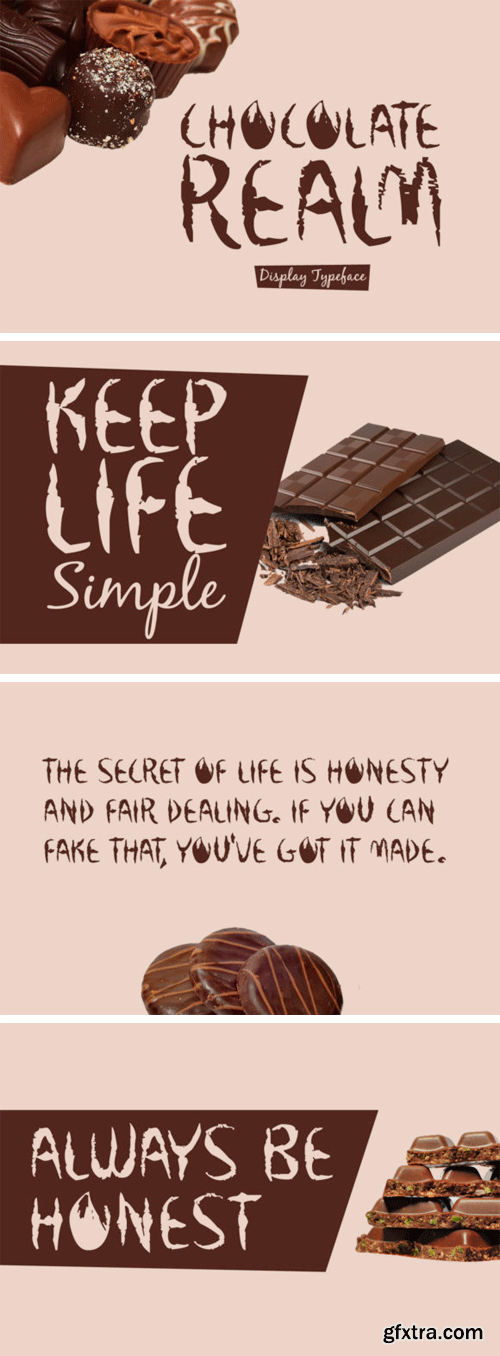
巧克力王国字体
The Chocolate Realm is a modern display font. It’s perfectly suited for stationery, logos, t-shirts, papers, print designs, website headers, photo frames, flyers, music covers, posters, image sliders, and much more.